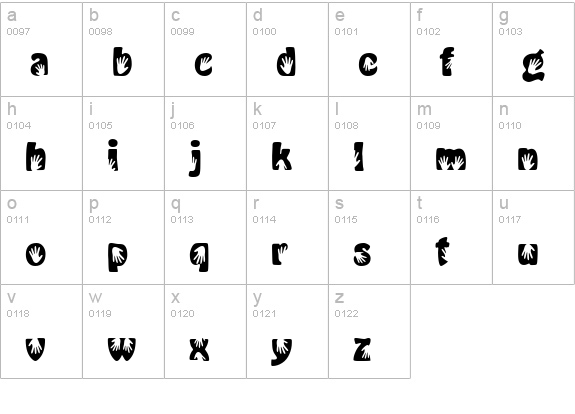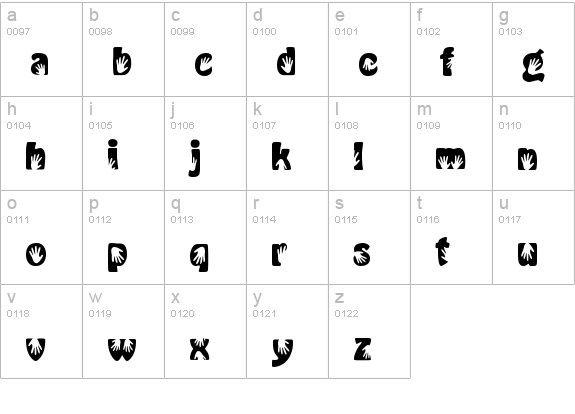
Handmedown Font Details
Handmedown font is a beautifully crafted typeface that exudes a sense of nostalgic charm and vintage appeal. With its hand-drawn letterforms and imperfect lines, this font captures the essence of handwritten notes passed down through generations. Each character carries a unique personality, adding a touch of authenticity to any design project. What sets Handmedown font apart is not just its stunning aesthetics, but also the fact that it is freely available for download. You heard it right – free! This incredible font can be easily accessed and downloaded at FontsMarket.com, making it accessible to designers, artists, and enthusiasts alike. Whether you're working on a branding project, creating eye-catching posters, or designing personalized invitations, Handmedown font is the perfect choice to add a touch of warmth and character. Its versatility allows it to seamlessly blend with various design styles, from vintage and retro to contemporary and modern. The beauty of Handmedown font lies in its ability to evoke a sense of nostalgia while remaining fresh and relevant. It effortlessly bridges the gap between the past and the present, creating a timeless appeal that captivates the viewer's attention. As you explore the vast array of characters, you'll discover the intricate details and subtle imperfections that make Handmedown font truly unique. Each stroke and curve tells a story, inviting the reader to delve into a world of handwritten authenticity. With its generous availability and undeniable charm, Handmedown font is a must-have addition to any designer's toolkit. So why wait? Head over to FontsMarket.com and unlock the creative possibilities that this remarkable font has to offer. Download it for free and let your imagination soar as you bring your designs to life with Handmedown font.